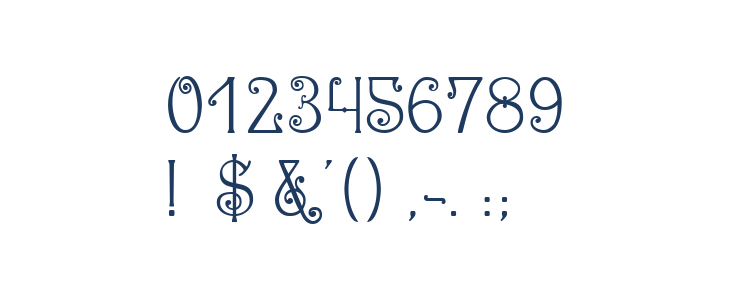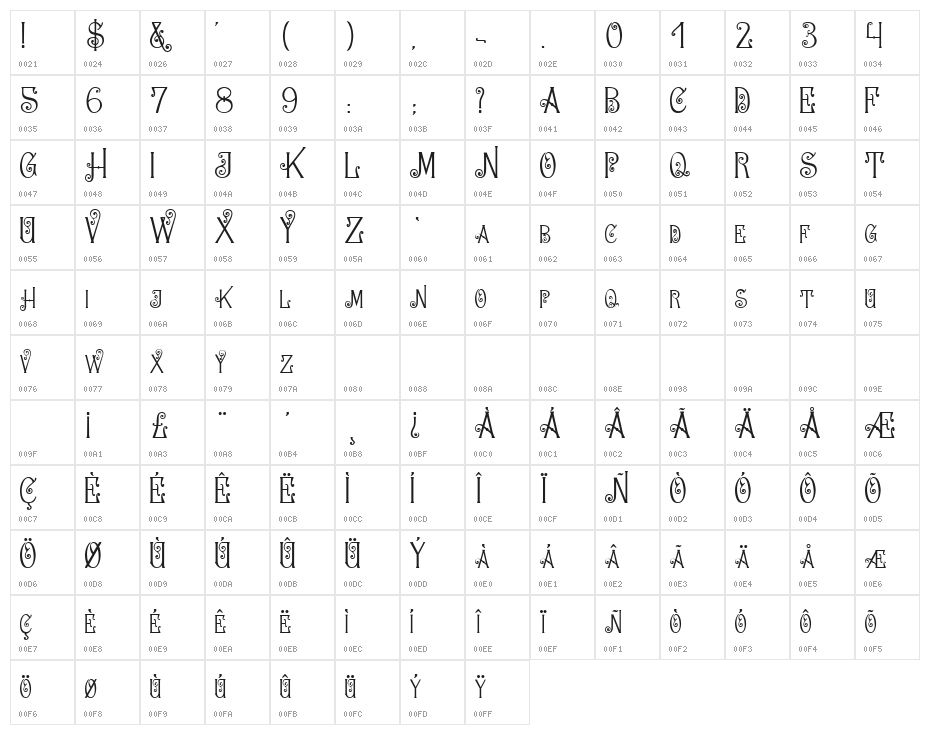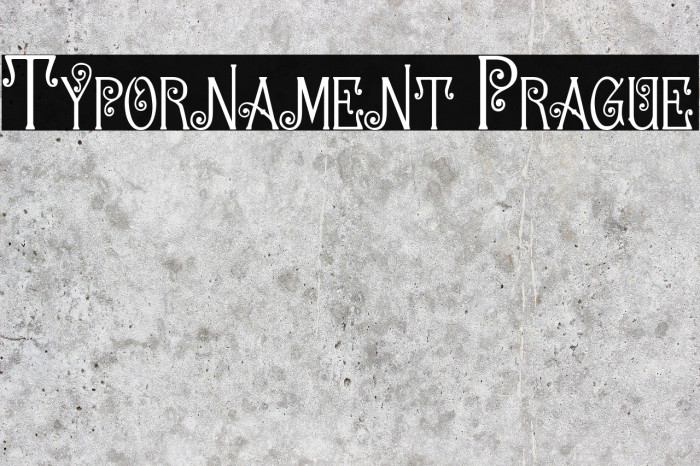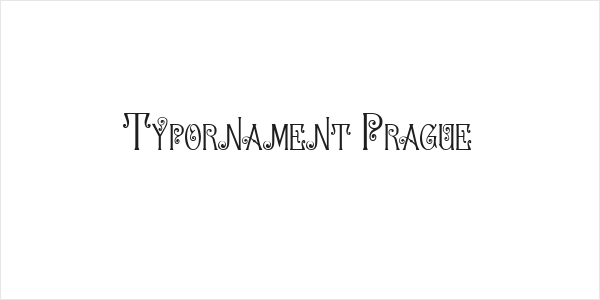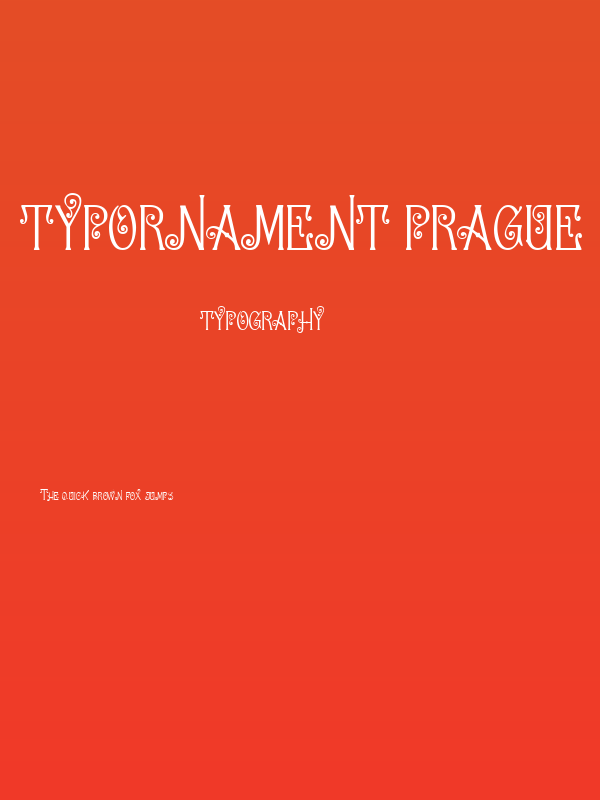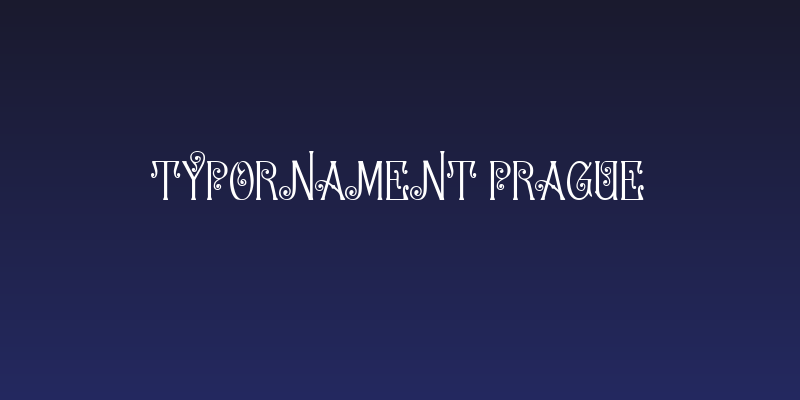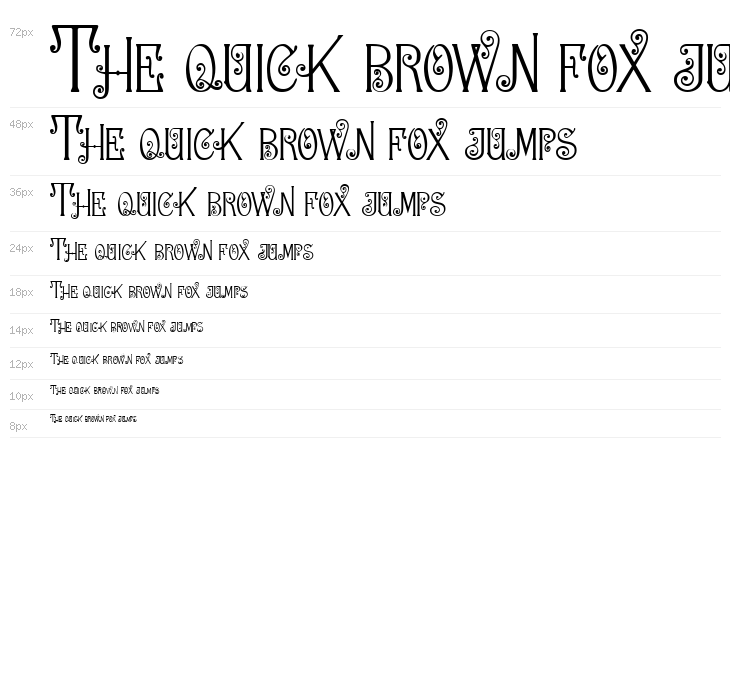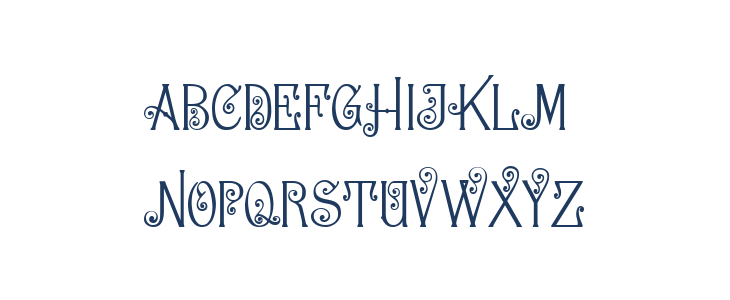
Typornament Prague Font
Typornament Prague Description
This font features a decorative style with intricate swirls and embellishments integrated into each character. The uppercase and lowercase letters are designed with a consistent ornamental theme, creating a whimsical and artistic appearance. The numbers and special characters follow the same decorative pattern, ensuring a cohesive look across all glyphs. The font's unique style makes it stand out, with its elaborate details adding a touch of elegance and creativity. It is ideal for projects that require a distinctive and eye-catching typeface.
| Proposed Projects | Ideal for invitations, greeting cards, posters, and branding materials that require a unique and artistic touch. |